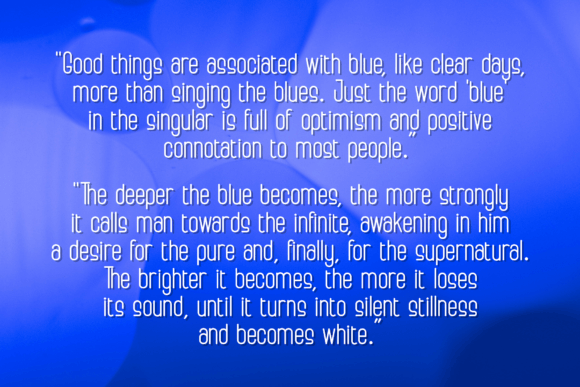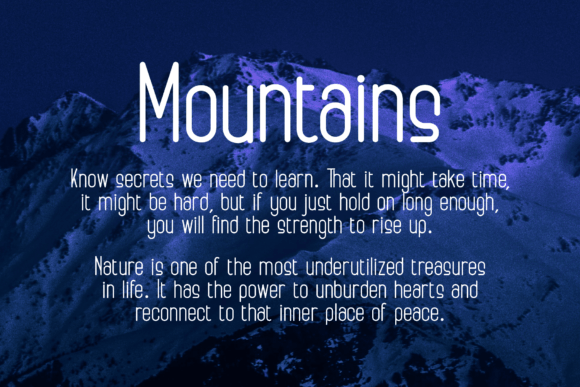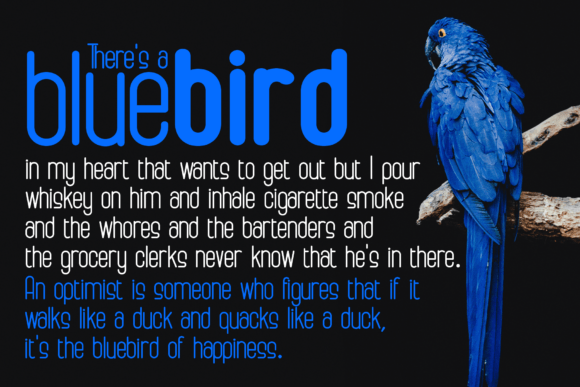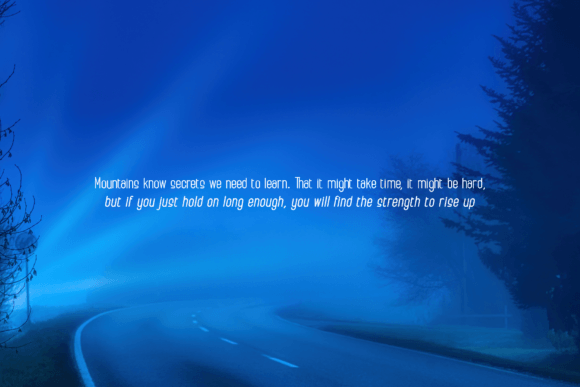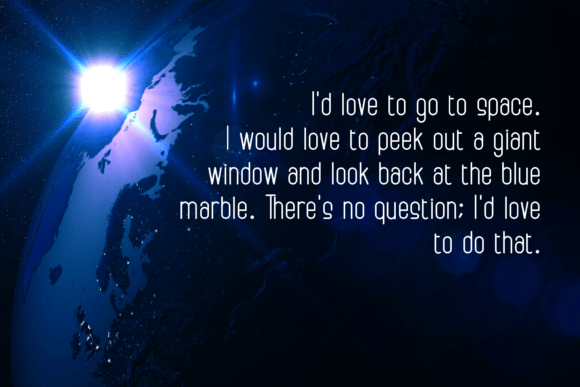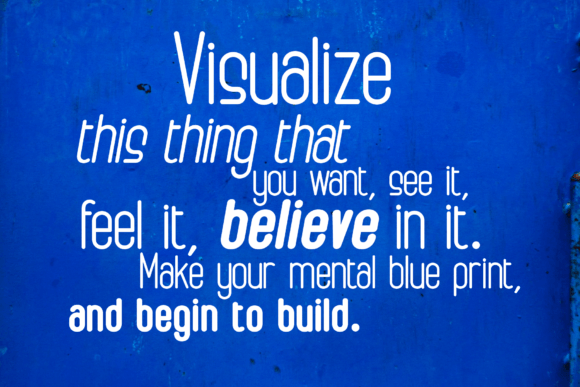
Introducing Ellena Font: Elevate Your Craft with Modern Elegance
In the world of design, typography plays a crucial role in conveying messages, expressing creativity, and setting trends. For crafters, designers, and entrepreneurs looking to make their products stand out, choosing the right font can be a game-changer. This is where Ellena Font comes into play – a modern and neat sans serif font designed to enhance your craft with little effort, making your product shine in a crowded market.
The Essence of Ellena Font
Ellena Font is characterized by its clean lines, modern aesthetic, and versatility. As a sans serif font, it offers a contemporary look that can seamlessly integrate into various design projects, from branding and packaging to digital media and advertising. Its neat and organized structure ensures that your message is conveyed clearly and effectively, making it an excellent choice for designers and crafters aiming to leave a lasting impression.
Why Choose Ellena Font?
- Modern Appeal: Ellena’s sleek design gives your projects a modern edge, appealing to audiences who appreciate clean and minimalist aesthetics.
- Versatility: Its sans serif nature makes it suitable for a wide range of applications, from digital platforms to print materials.
- Easy to Read: The clear and straightforward structure of Ellena Font ensures that your content is easily readable, enhancing the overall user experience.
- Stand Out: In a sea of traditional fonts, Ellena offers a unique flair that can set your product or brand apart from competitors.
Applications of Ellena Font
The versatility of Ellena Font makes it an invaluable asset for various design projects. Here are some of the areas where Ellena can make a significant impact:
- Branding: Use Ellena Font in your logos, business cards, and letterheads to establish a modern and professional brand identity.
- Digital Media: Enhance your website, social media posts, and digital advertisements with a font that captures attention and communicates your message effectively.
- Packaging: Make your products stand out on store shelves with eye-catching packaging designs featuring Ellena Font.
- Advertising: Whether it’s billboards, flyers, or online ads, Ellena can help your advertising materials look more appealing and professional.
Tips for Using Ellena Font Effectively
To maximize the potential of Ellena Font, consider the following tips:
- Combine with Images: Pair Ellena Font with high-quality images or graphics to create visually appealing compositions.
- Experiment with Colors: While Ellena’s clean design works well in black and white, experimenting with colors can add an extra layer of personality to your designs.
- Play with Sizes: Utilize different font sizes to create a hierarchy of information, drawing attention to key messages.
- Maintain Consistency: For branding purposes, use Ellena Font consistently across all your materials to build a strong and recognizable identity.
Ellena Font is more than just a typeface – it’s a tool that can elevate your craft, making your products and brand stand out in a competitive market. Its modern and neat sans serif design offers versatility, readability, and a unique appeal that can enhance a wide range of design projects. By incorporating Ellena Font into your design arsenal, you’re not just choosing a font; you’re embracing a design philosophy that prioritizes clarity, elegance, and impact. So, why settle for ordinary when you can make your craft extraordinary with Ellena Font?